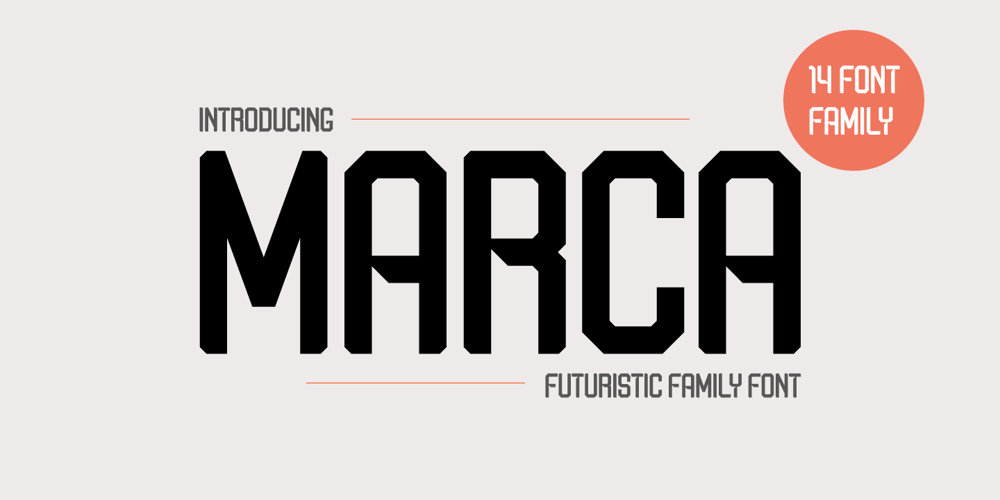
Marca Font Family was designed by Amri Mauludin and published by ArimaType. Marca contains 14 styles and family package options. Marca is a futuristic sans serif font family with calculations to develop your designs and products. By utilizing geometric calculations, and remain logical, so as to maintain balance in each shape. So that you will get a clean, neat, and perfect shape.Marca comes in 9 weights and italics to match, making it 14 styles. It makes it perfect for all your creative projects.ArimaType@gmail.com#1266576